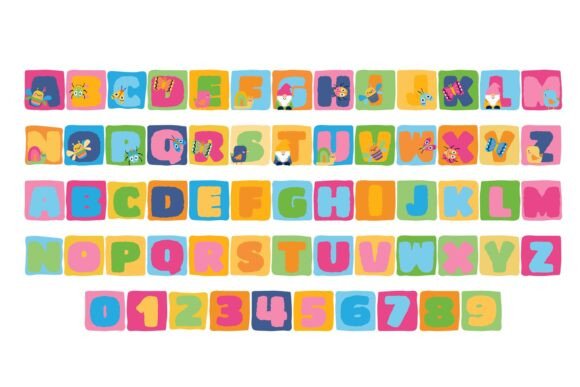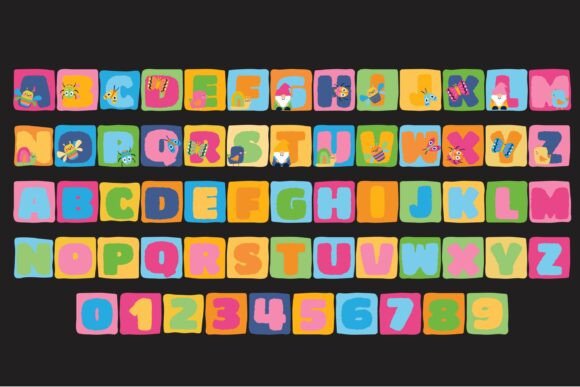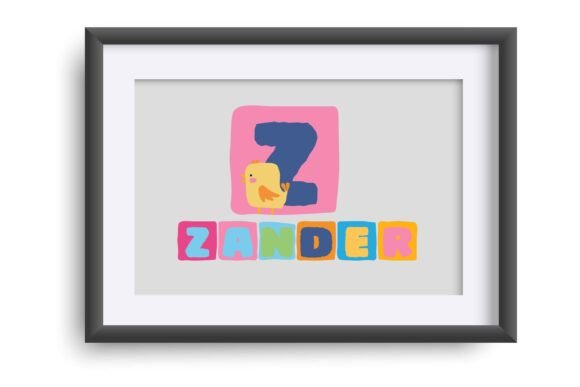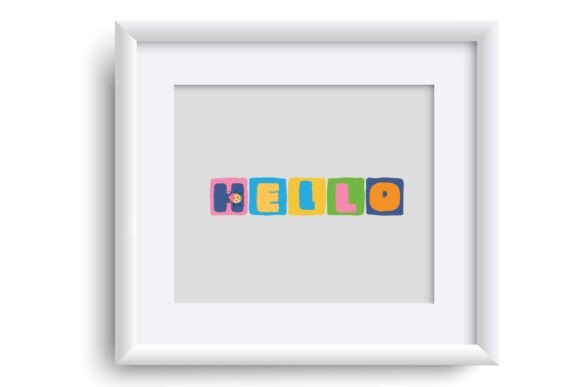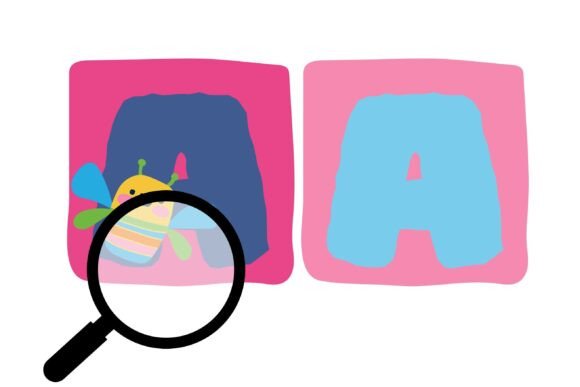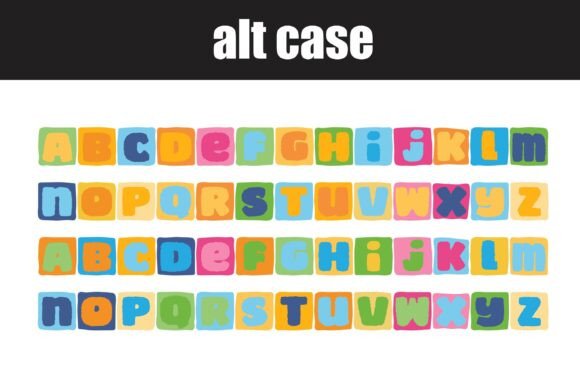
Introduction to Iconic Garden Font
Have you ever stumbled upon a design that sparks joy and makes you want to get creative? For many designers, that moment comes when they discover a unique and captivating typeface. For us, that moment was the introduction to the Iconic Garden Font, a whimsical display typeface that brings a touch of magic to any creative project.
With its bold, chunky letterforms and hand-drawn garden icons, this full-color SVG font is a treasure trove of design inspiration. From the intricate details of its rhythmic illustrations to the vibrant block frames that surround them, every element of the Iconic Garden Font is a testament to the power of imagination and creativity. Whether you’re working on a free download for a community garden or a high-quality branding project for a boutique nursery, this font is sure to add a touch of wonder to your design.
As a valuable design resource, the Iconic Garden Font offers a transparent background that makes it easy to customize and integrate into any creative project. With its high-quality design and eco-friendly vibe, it’s no wonder that this font has become a go-to choice for designers who want to add a touch of whimsy and charm to their work.
Honest Review: Iconic Garden Font
As a designer, I’m always on the lookout for high-quality design resources to elevate my creative projects. Recently, I stumbled upon the Iconic Garden Font, and I’m excited to share my honest review with you.
- The font has a unique, whimsical design that’s perfect for adding a touch of elegance to any project.
- The transparent background allows for seamless integration with other design elements.
- The font is highly customizable, allowing you to adjust the size, color, and style to suit your needs.
Overall, I’m impressed with the Iconic Garden Font’s unique design and high quality. While it may have some limitations, it’s a great addition to any design resource library. If you’re looking for a creative way to add some flair to your next project, I highly recommend giving it a try.
Tips for Getting the Most Out of Iconic Garden Font
Experiment with different font sizes and styles to create a visually appealing design. Use the font in combination with other design elements, such as images and graphics, to create a unique and creative project. Make sure to adjust the font size and style to match your design requirements. You can also use the font in combination with other design resources, such as free downloads and high-quality images, to create a professional-looking design.
The Iconic Garden Font is suitable for a variety of creative projects, including blog posts, social media graphics, and presentations. You can use the font to create custom typography, logos, and graphics for your business or personal brand. The font is also great for designing invitations, brochures, and other marketing materials.